Monoline Lettering with Mark L’Argent
The last SLLA workshop of 2018 was Monoline Lettering with Mark L’Argent. Mark gave us a demonstration in examples of basic Monoline compressed capitals. He explained how to achieve harmony in groups of letters and how to change the emphasis by moving crosslines on letters.
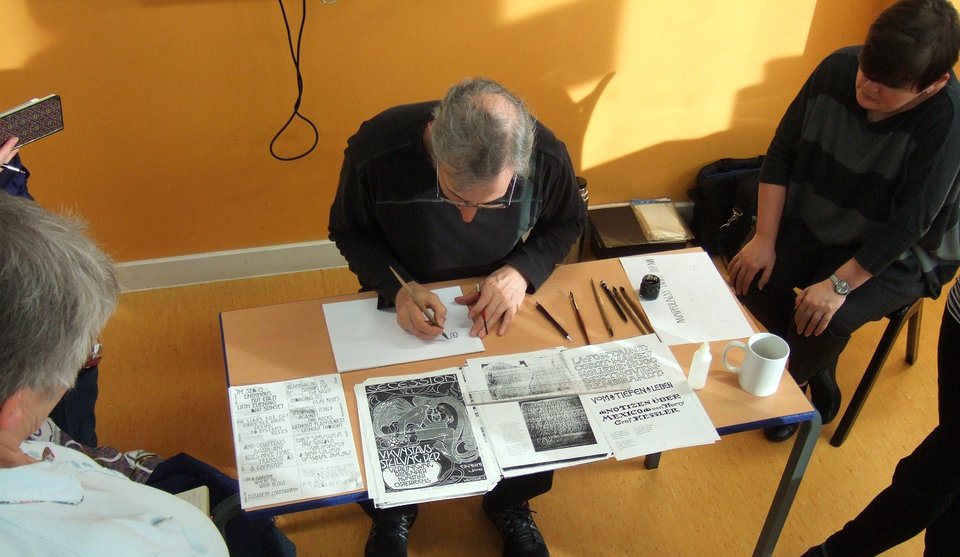
We were then encouraged to try them for ourselves, to choose a basic shape such as a triangle and see how many letters we could make using a variation on that shape.
Some interesting variations were produced and there was lots of good work for the show and tell at the end of the workshop.